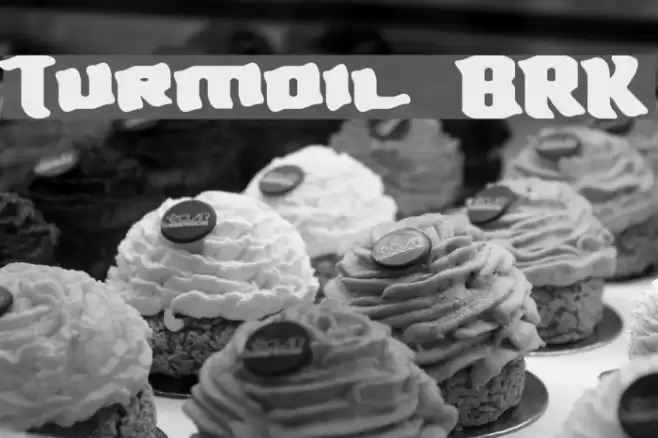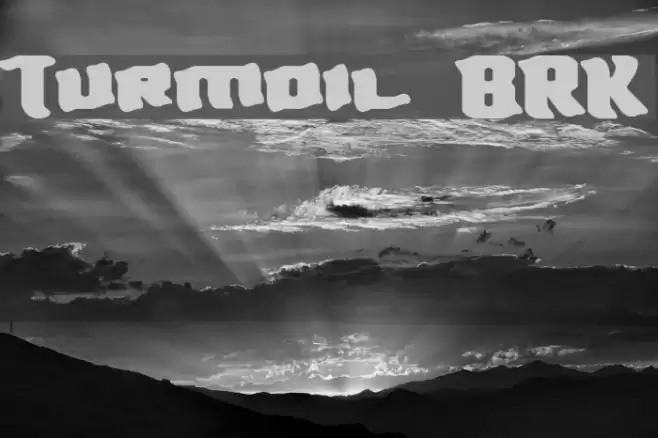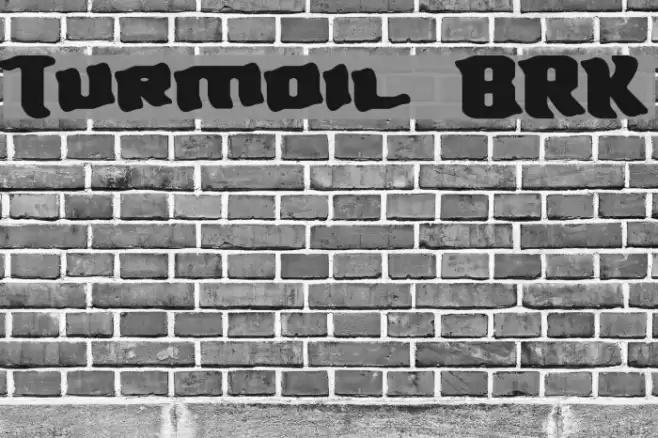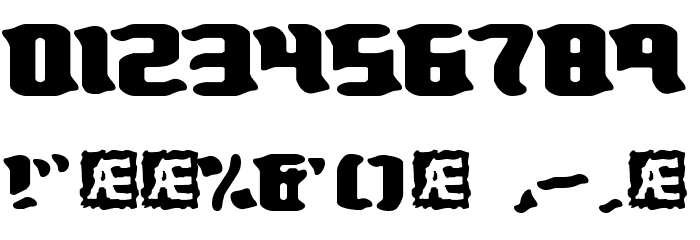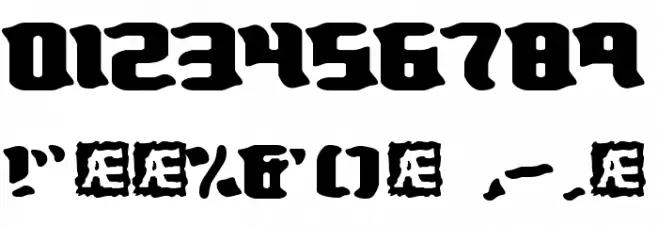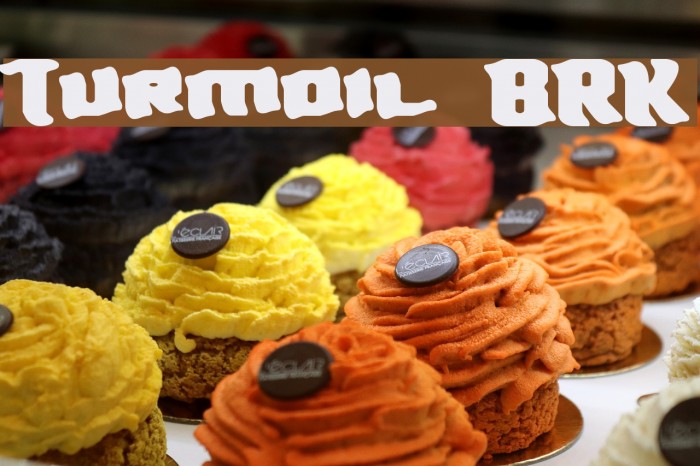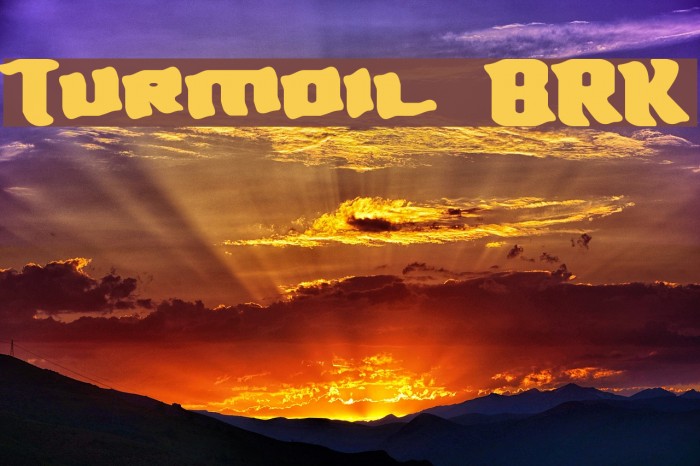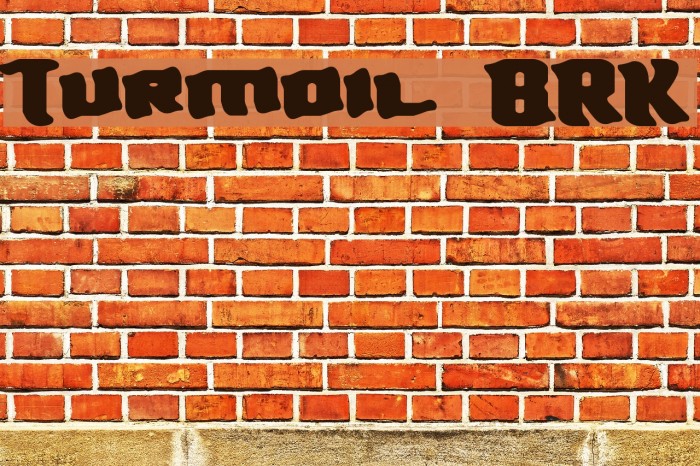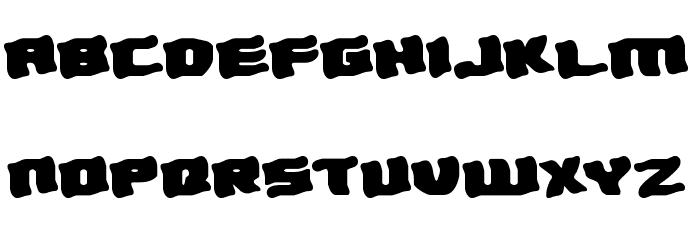
Turmoil BRK Font
Turmoil BRK Description
This font features a bold and dynamic style with a rugged, distressed appearance. The characters have a thick, blocky structure with irregular edges, giving them a hand-crafted, grunge-like aesthetic. The uppercase and lowercase letters maintain a consistent weight, while the numbers and special characters follow the same bold, textured design. The font's unique style makes it stand out, ideal for projects that require a strong visual impact.
A bold, distressed font with a rugged, grunge-like appearance from Script fonts.
- Proposed Projects: Ideal for posters, album covers, video game graphics, and any project needing a bold, edgy look.